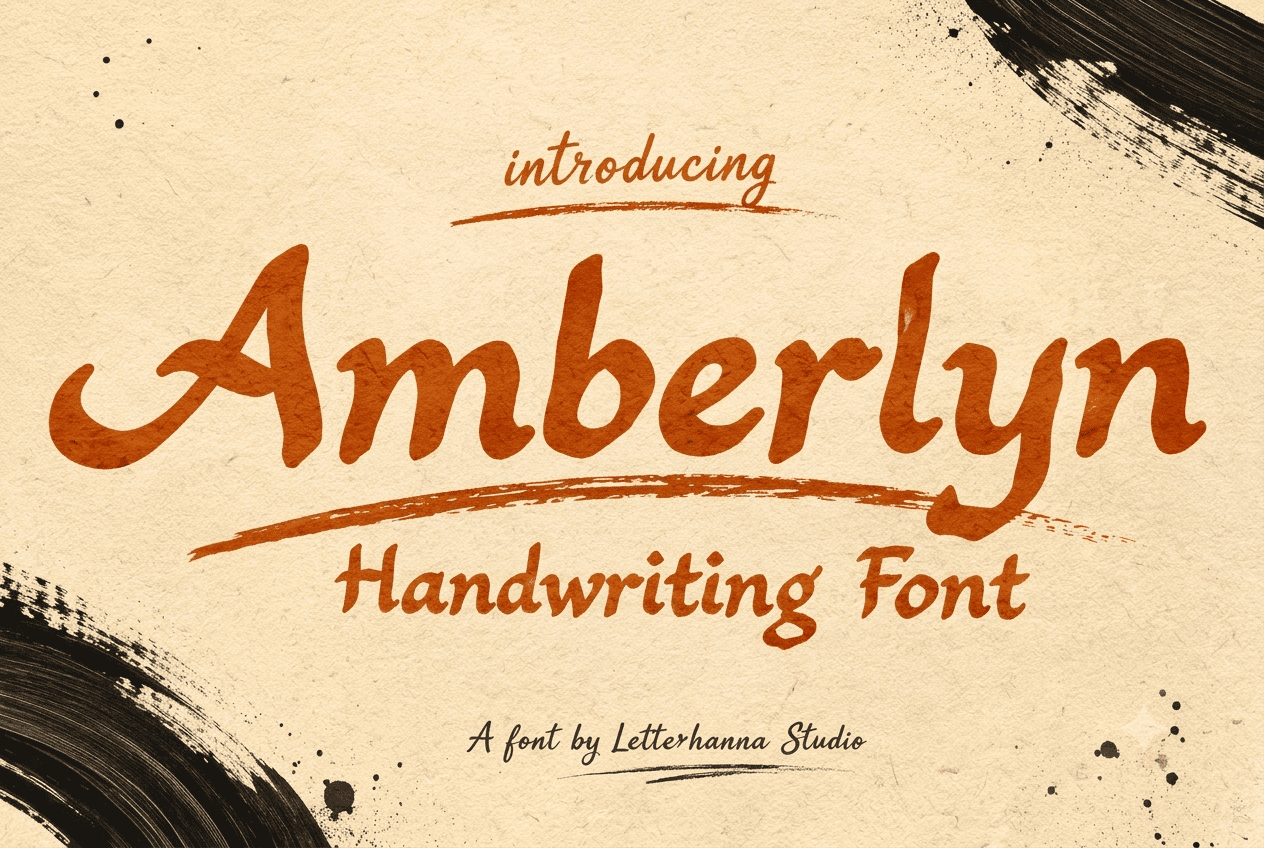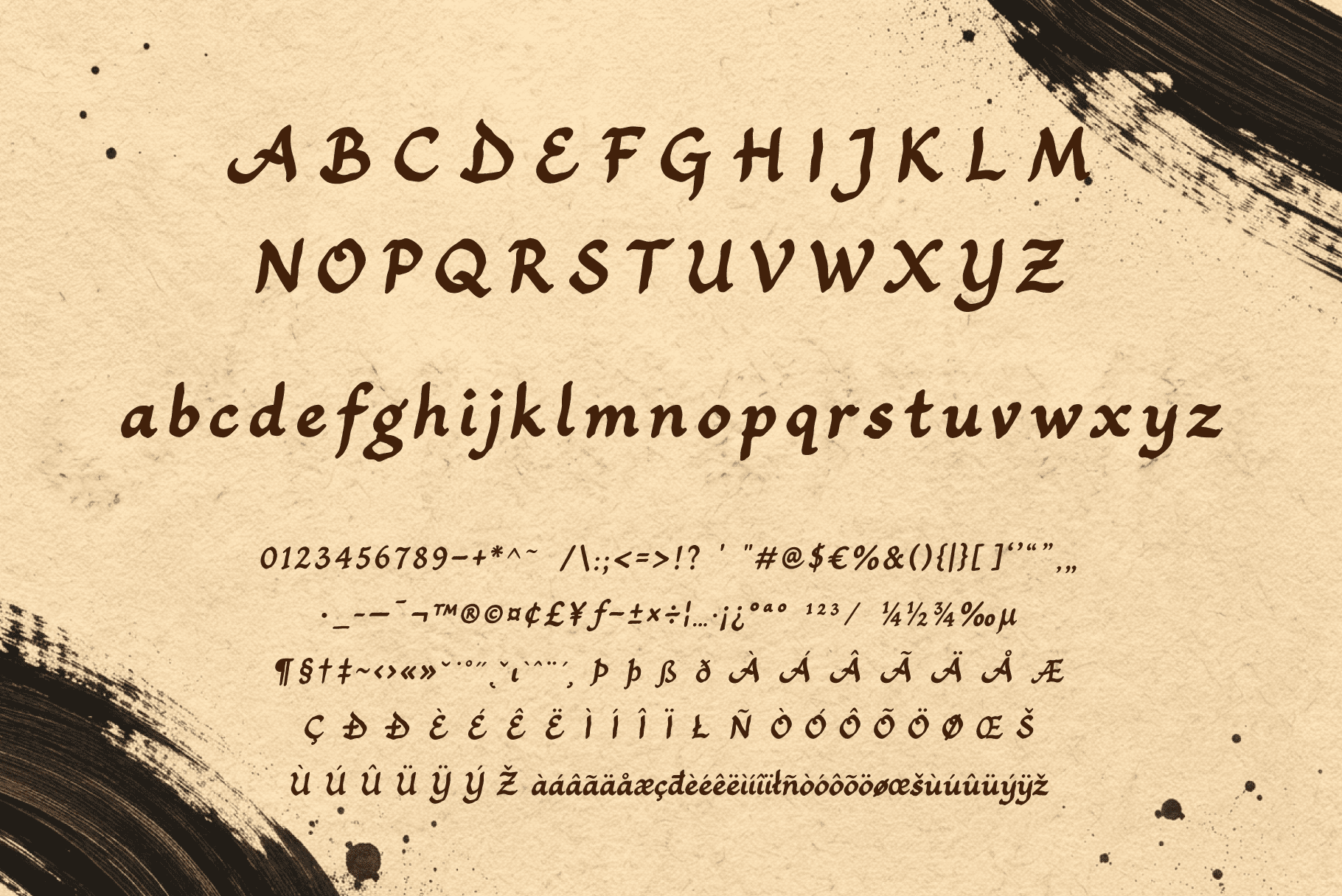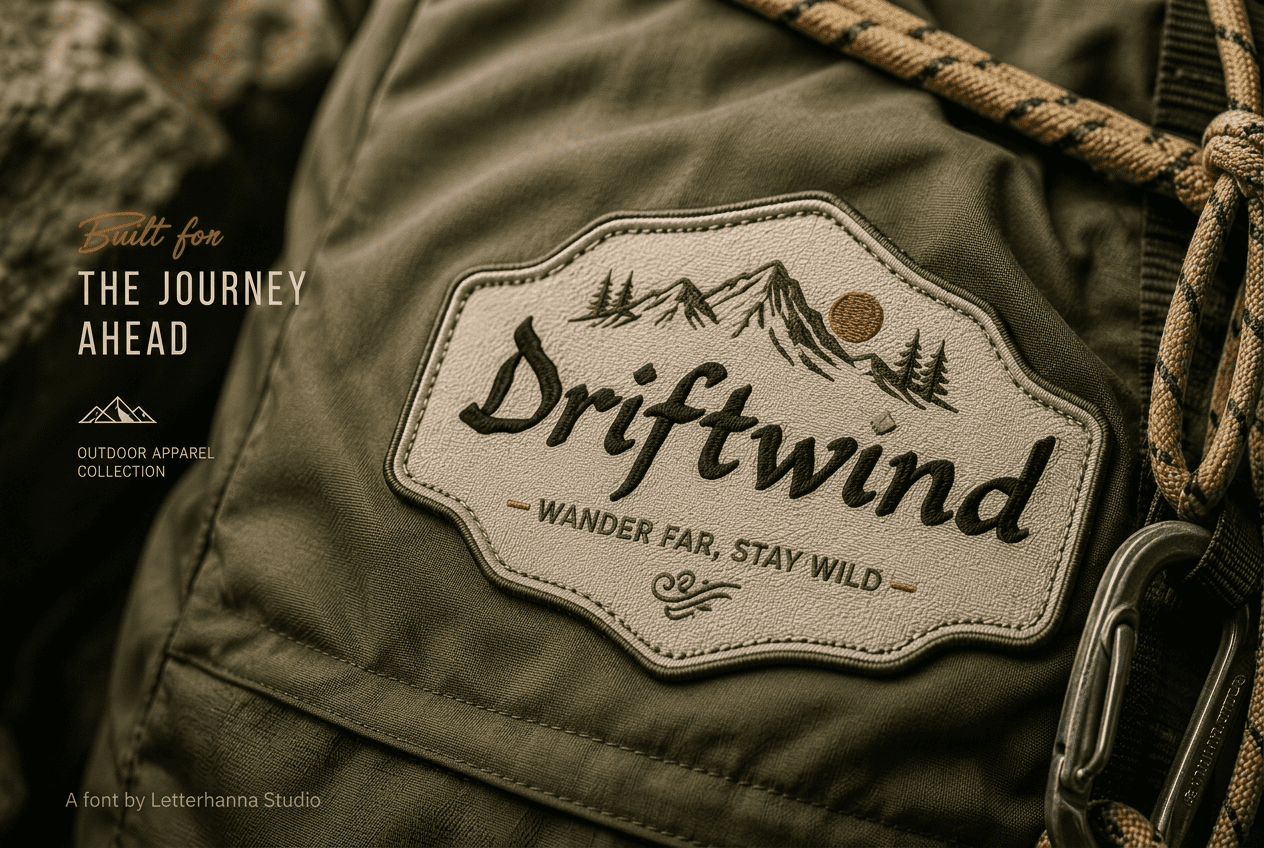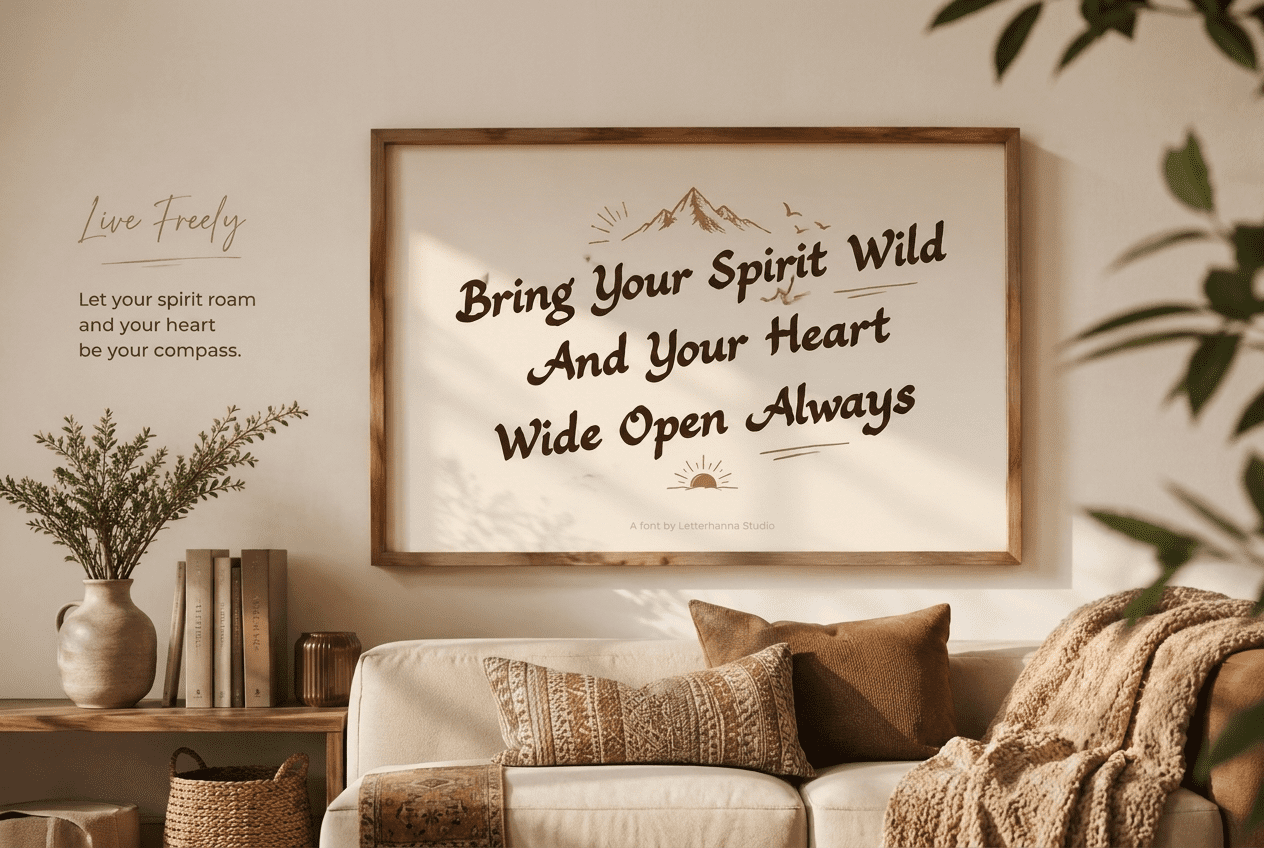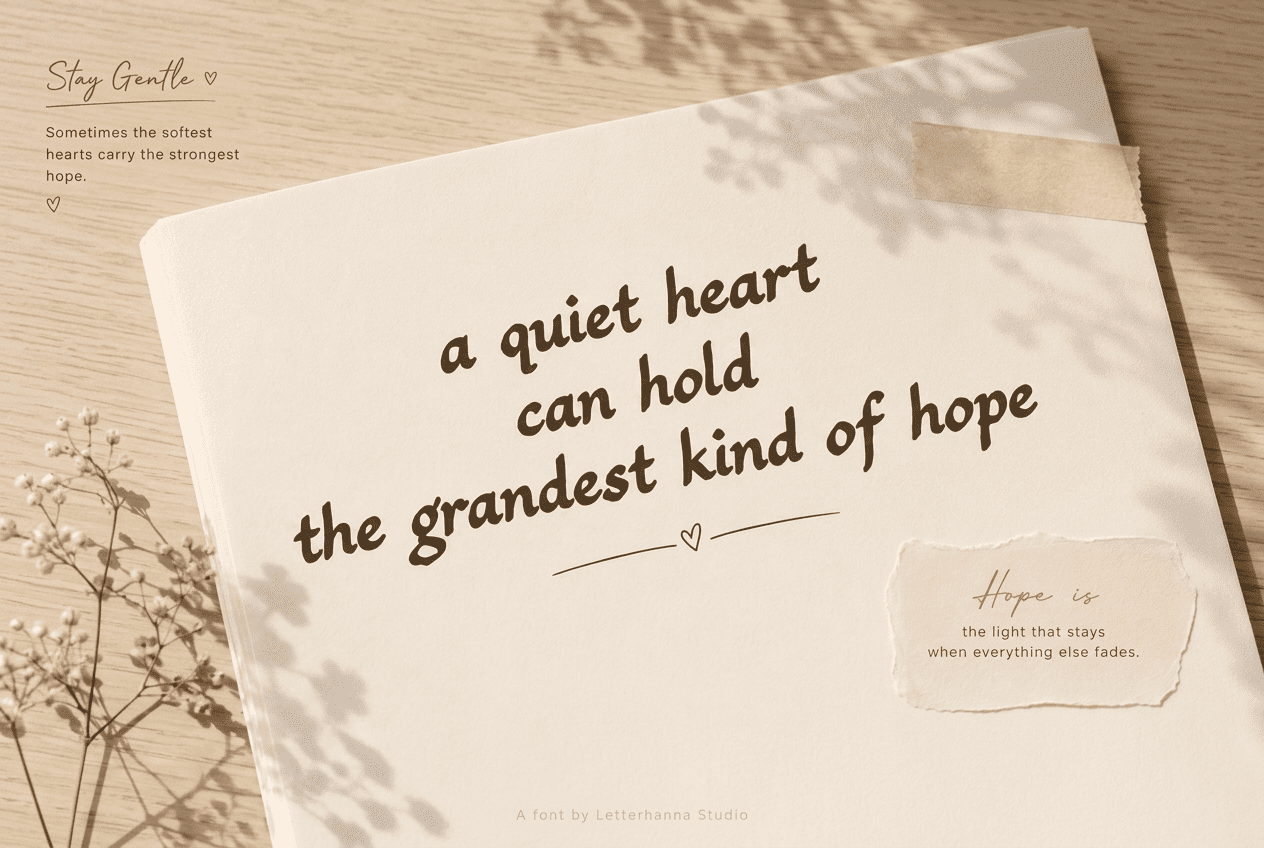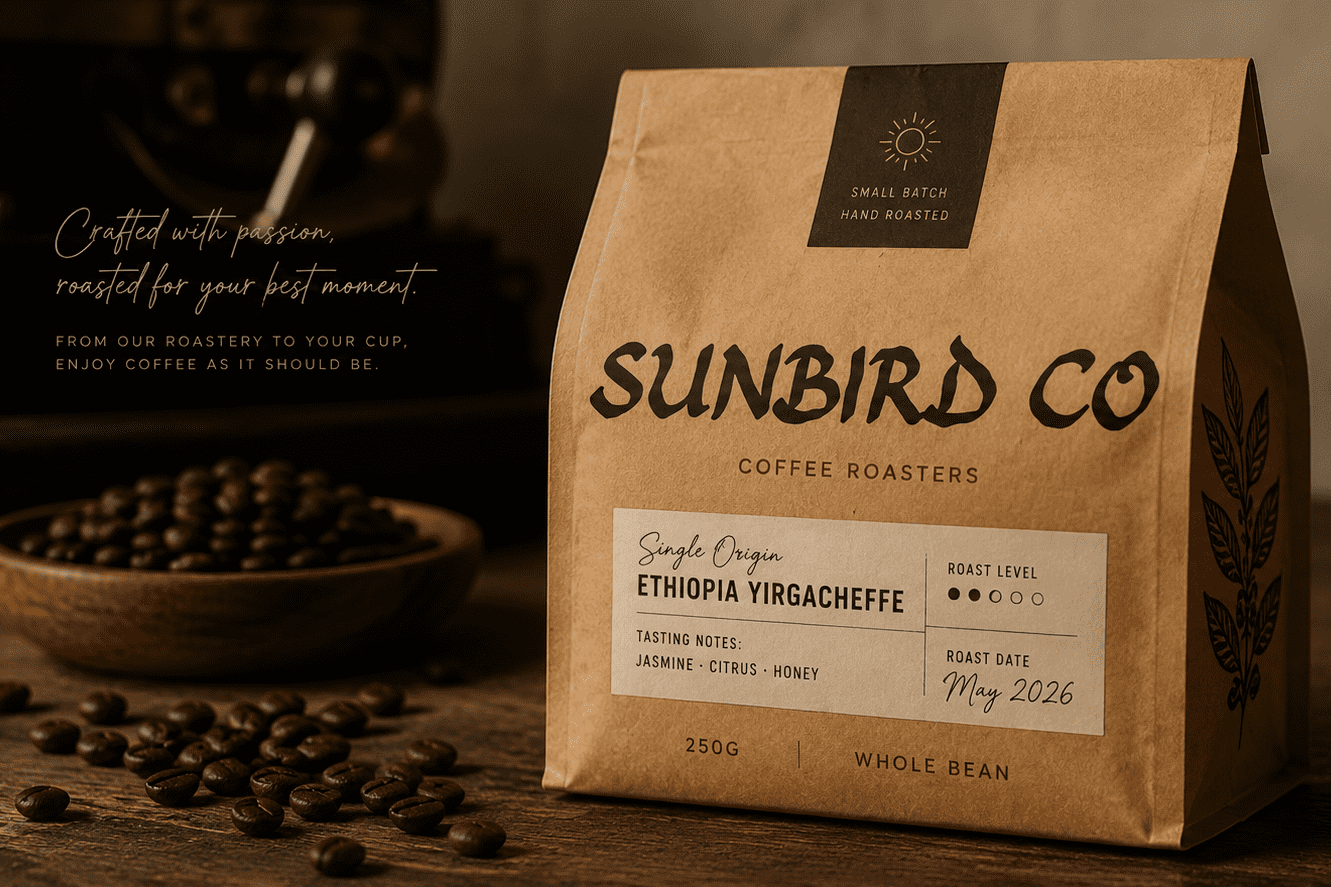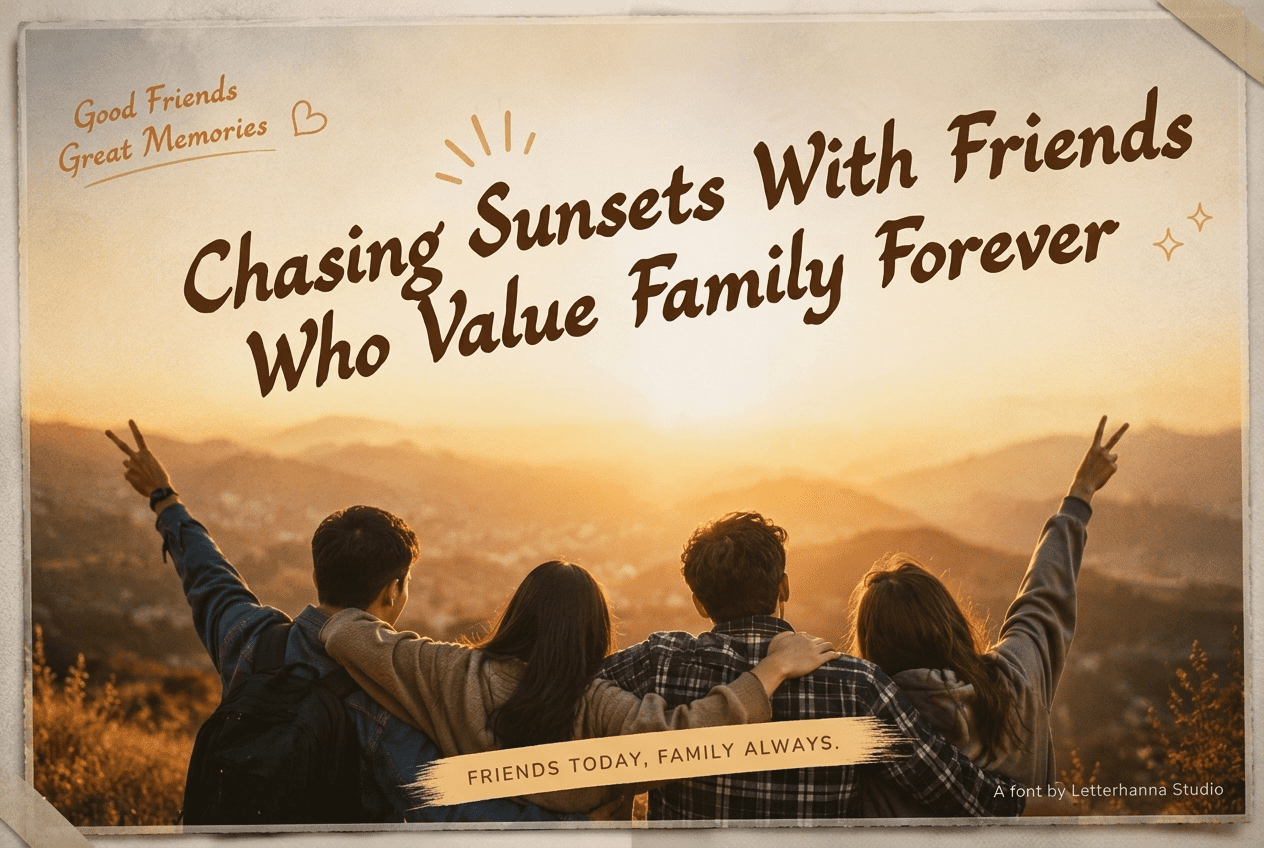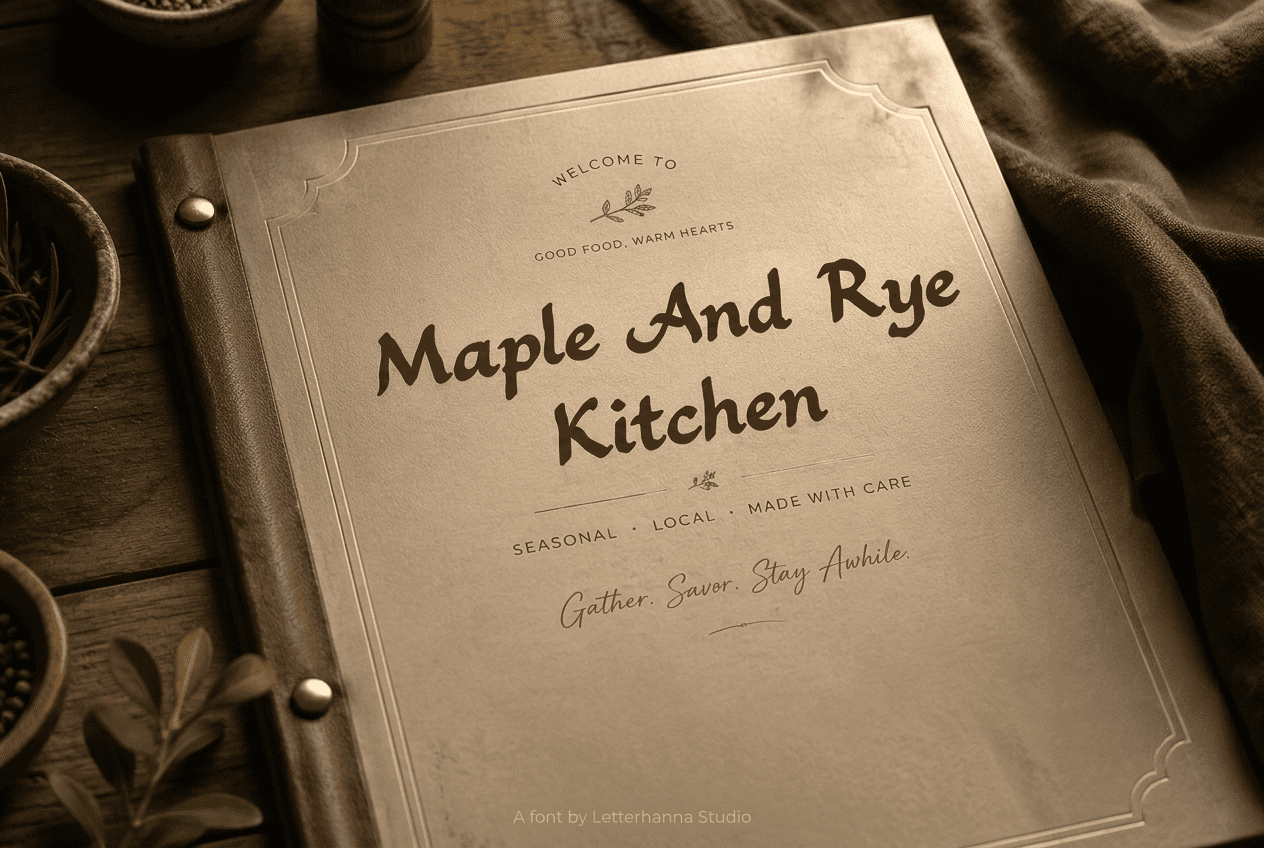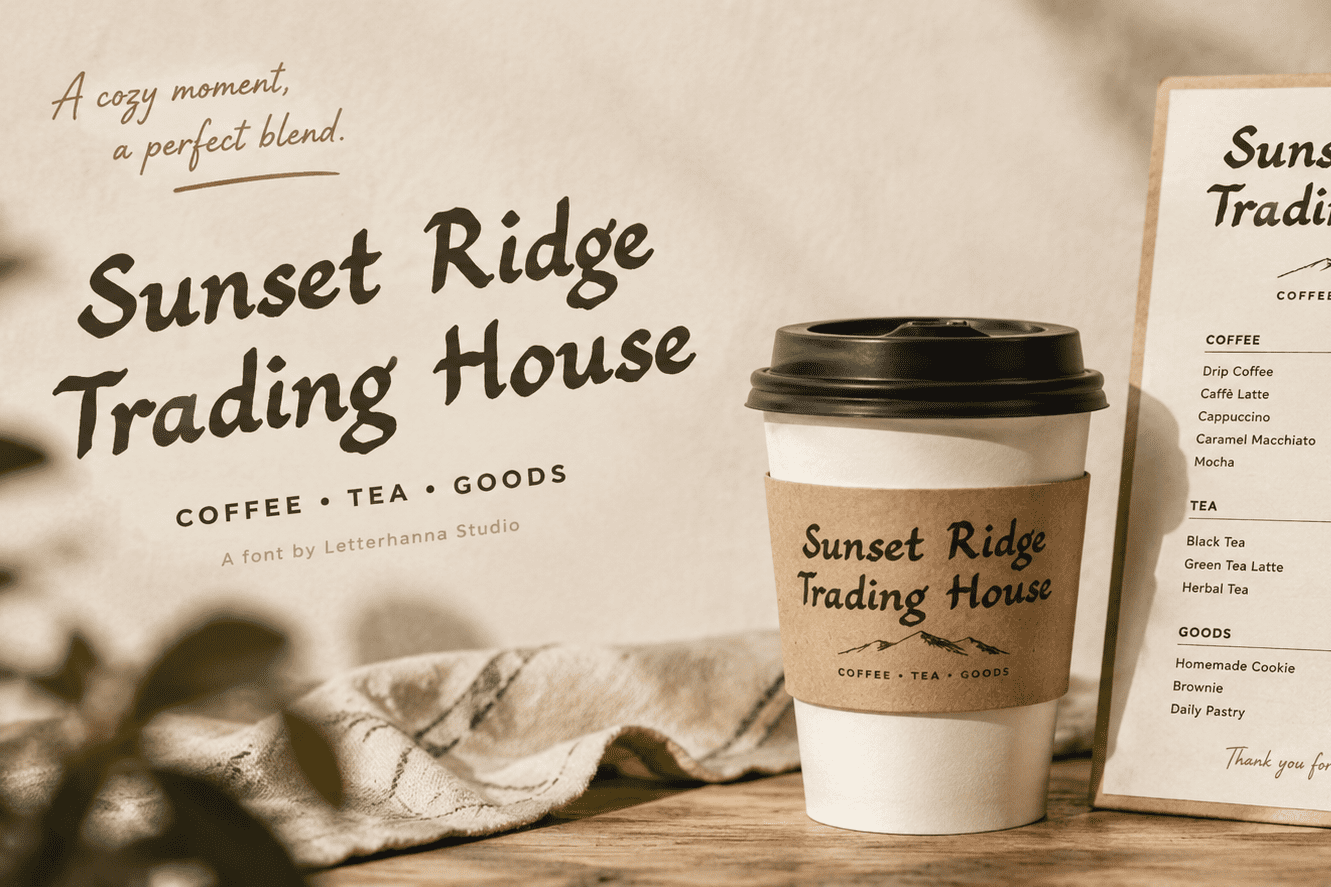
Every great handwriting font tells a story before a single word is read. Amberlyn Font begins its story with a swing of the wrist β a loose, confident stroke that feels like it was scrawled on the back of a concert flyer, a skateboard deck, or the margin of a well-loved sketchbook. It is bold. It is fast. And it carries the unmistakable energy of a hand that refuses to slow down.
As a handwriting font, Amberlyn sits in a category crowded with delicate, dainty scripts β but it takes a different path. Instead of thin, wavering lines, Amberlyn is built from thick, monoline strokes that swing with real momentum. Capital letters flick outward with pointed, flag-like terminals, especially visible on letters like A and K, giving the alphabet a rebellious, almost graffiti-adjacent attitude. Lowercase letters keep that same looseness, with a baseline that dips and rises naturally rather than sitting in a rigid row. The result is a hand drawn typeface that feels genuinely handmade β not a script smoothed over by a computer, but one that keeps its rough, human edges intact.
Think of the artist who inspired it: someone who doesn’t sketch, they attack the page. Marker in hand, moving quickly, leaving thick confident lines with no hesitation. That’s the spirit baked into every glyph of Amberlyn. It’s the visual equivalent of a drumbeat β steady, energetic, impossible to ignore.
What makes Amberlyn stand apart from typical calligraphy fancy alphabet styles is its restraint. Traditional calligraphy often leans ornamental, full of curls and flourishes meant to be admired slowly. Amberlyn moves in the opposite direction. It’s expressive but efficient, decorative but readable at a glance β which makes it far more versatile for real-world design work. You get personality without sacrificing legibility, a balance that’s surprisingly hard to find in the handwriting font space.
Because Amberlyn is also a bold script font, it holds up beautifully at large sizes. Headlines, posters, product packaging, and social graphics all benefit from letterforms this confident. Where thinner scripts disappear on a busy background or a small phone screen, Amberlyn’s thick strokes stay visible, stay legible, and stay full of character.
Where Amberlyn Works Best
- Streetwear and apparel branding that wants an energetic, youthful edge
- Sports and fitness logos needing motion and confidence
- Packaging for snacks, drinks, or lifestyle products aimed at a younger audience
- Social media quote graphics and Instagram story templates
- Band merch, event posters, and skate/surf culture branding
- Bold headline text in editorial or magazine-style layouts
Amberlyn isn’t trying to whisper elegance. It’s built to shout, laugh, and move β the kind of font that fits a brand with something to say and the confidence to say it loudly.
A Font With a Personality
Naming a typeface always comes down to finding the right word to hold its personality, and Amberlyn was chosen because it feels warm and a little wild at once β approachable, but never boring. It’s the font you reach for when “clean and corporate” isn’t the goal, and “expressive and unforgettable” is.
If your brand needs to feel human β like it was made by a person with real energy, not a template β Amberlyn is ready to carry that voice.